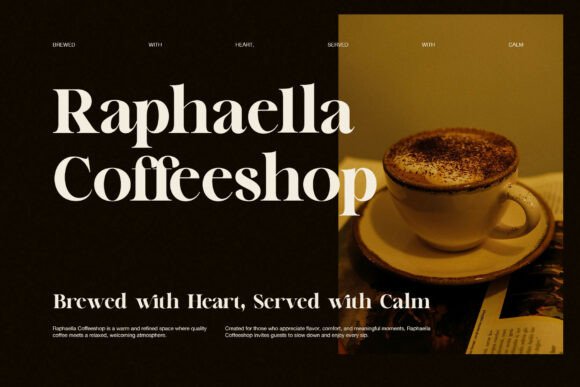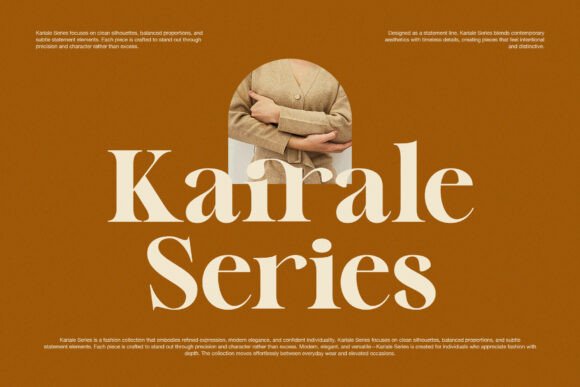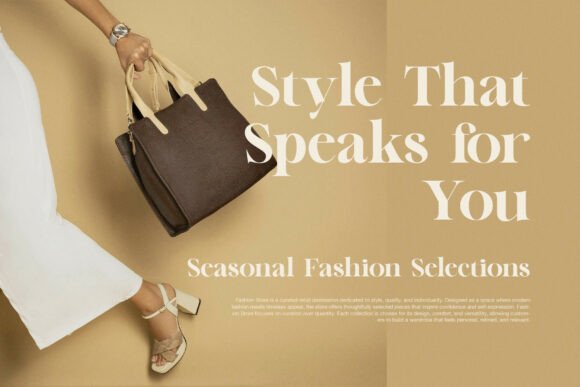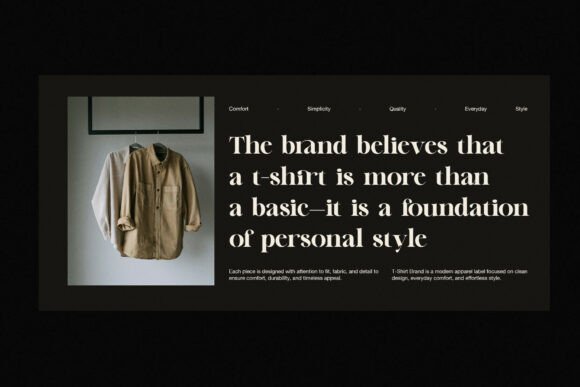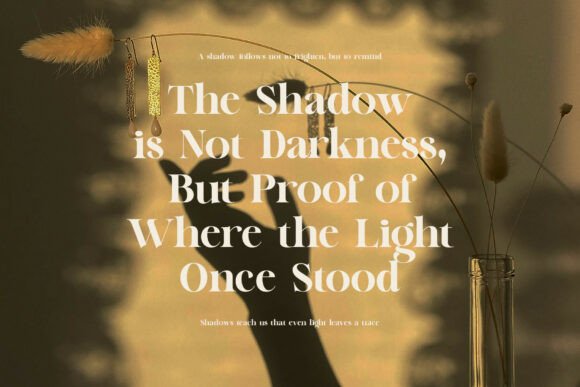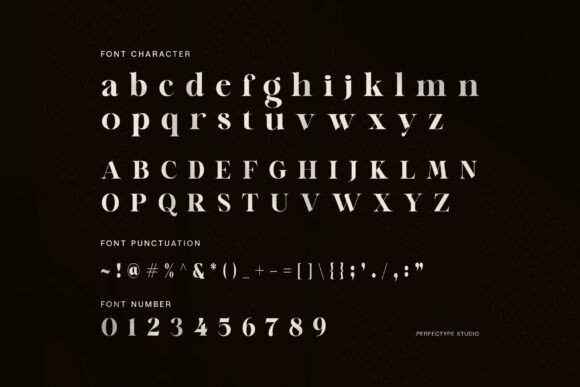
Introduction to Melfin Font
Milant is an elegant modern serif font created to express confidence, warmth, and refined simplicity.
From the first impression, this font feels stylish and composed Therefore, it is a strong choice for designers who want typography that feels expressive yet controlled.
Key Features of Melfin Font
Why Choose Melfin Font?